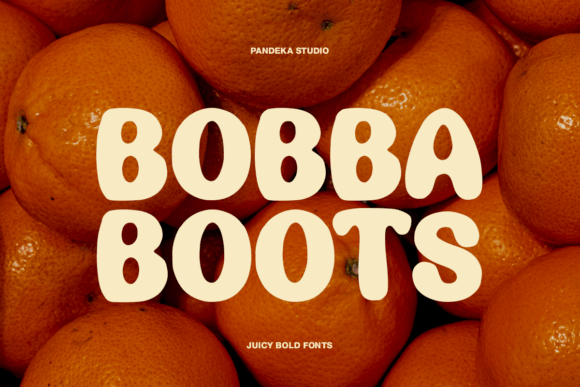
Step into the Groovy World of Bobba Boots Font
I’ll never forget the time I was working on a project for a trendy new juice bar, struggling to find the perfect font that captured the fun, carefree vibe of their brand. The client wanted something that would make their packaging and social media graphics pop, but I was coming up blank. That’s when I stumbled upon the Bobba Boots font, and it was love at first sight! 💕
This juicy, bold typeface is defined by its incredibly plump, rounded letterforms, instantly recalling the vibrant and carefree aesthetics of the 1970s. Perfect for projects that need to radiate positive energy, Bobba Boots is a powerful tool for grabbing attention in a saturated digital landscape.
An Honest Review of Bobba Boots Font
- ✅ The unique character and playful bounce of this bold font make it an absolute essential for branding food products, juice packaging, candy wraps, or anything requiring a sweet, appetising vibe.
- ✅ Its heavyweight and soft curves ensure maximum legibility at large sizes, making it the ideal choice for eye-catching headlines, poster design, and merchandise.
- ✅ The font’s versatility allows it to be used across various platforms, from social media graphics to T-shirt designs.
While Bobba Boots is an amazing font, there are a few things to keep in mind:
- 🤔 It may not be the best choice for body text or small font sizes, as its bold and rounded nature can make it difficult to read.
- ⚠️ Some of the more intricate details may get lost when used at very small sizes or in certain resolutions.
- Take advantage of OpenType features, glyphs, and stylistic alternates to add more personality to your design.
- Use the font for headings, titles, or emphasis to add a pop of personality to your document.
The Backstory of Bobba Boots Font
According to the designers, Bobba Boots font was inspired by the fun, carefree vibes of 1970s design. The team wanted to create a font that captured the essence of that era, with its bold, rounded letterforms and playful bounce. The result is a font that’s perfect for projects that need a little extra personality and whimsy.
A: Bobba Boots font is best used for headlines, titles, and emphasis, where its bold and playful nature can shine.
A: While Bobba Boots font is beautiful, it’s not ideal for body text due to its bold and rounded nature.